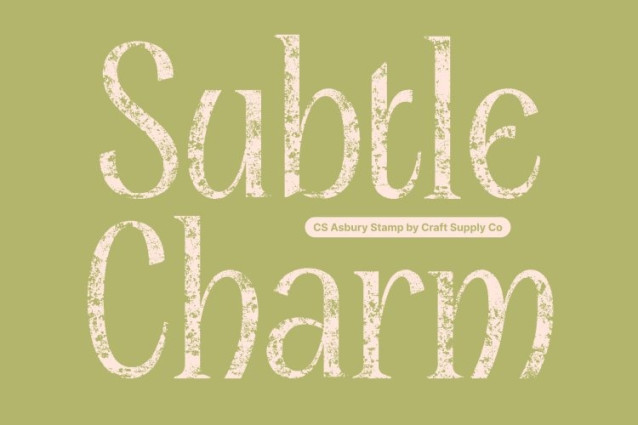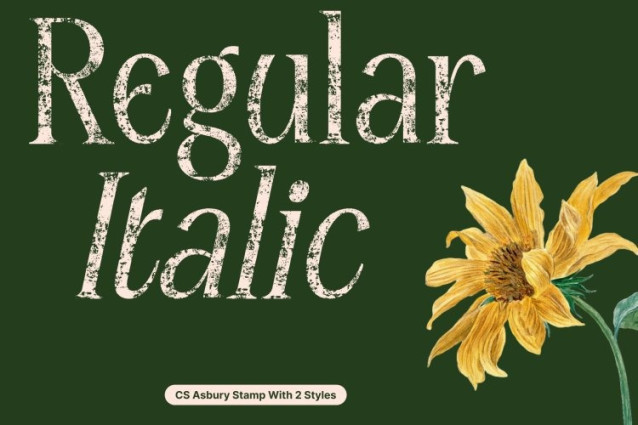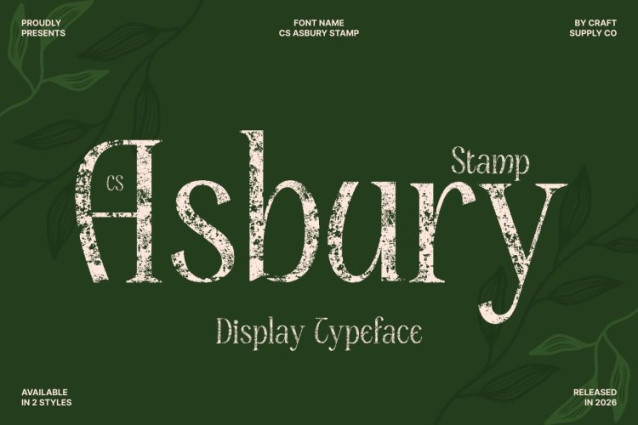
CS Asbury Stamp Font
CS Asbury Stamp Font This is a modern serif font that harmoniously blends clean geometric construction with classic proportions, resulting in a typeface that feels refined, balanced, and timeless. Each letterform is carefully crafted to deliver clarity and elegance, creating a high-end aesthetic rooted in tradition yet polished for contemporary design.
Classic Beauty Enhanced by Stamp Texture
Sharp, slender serifs and subtly tapered strokes define this font graceful structure. The added stamp effect introduces organic imperfections soft roughness, textured edges, and slight distress giving the font a vintage, handcrafted feel. This contrast between refined form and aged texture creates depth and character without sacrificing readability.
Vintage Elegance for Elevated Design
This font excels in elegant and professional applications such as editorial layouts, magazine headlines, book covers, luxury branding, fashion identities, and premium packaging. The stamped texture adds authenticity and warmth, evoking classic print techniques while maintaining a sophisticated, modern presence.
Versatile, Artistic, and Timeless
Whether used in logos, headlines, or refined typographic compositions, this font adapts seamlessly across print and digital media. Its combination of classic serif elegance and vintage stamp character ensures a distinctive visual voice stylish, expressive, and enduring perfect for designs that aim to feel both luxurious and authentic.